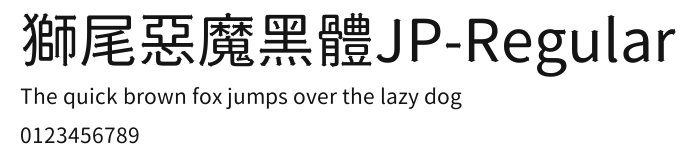
About 獅尾惡魔黑體JP-Regular.ttf
獅尾惡魔黑體JP-Regular.ttf is a modern, elegant sans-serif font designed for ultimate readability and visual harmony. Perfect for branding, headlines, web design, and print materials.